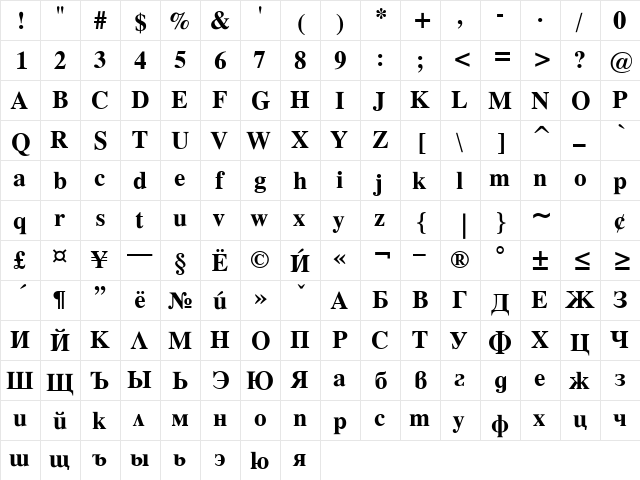
TimokB Bold
Design Context for TimokB Typeface
TimokB takes a measured approach to typography — its balanced proportions and neutral character make it a reliable workhorse for both digital and print work. Its bold stroke weight gives it real presence on the page.